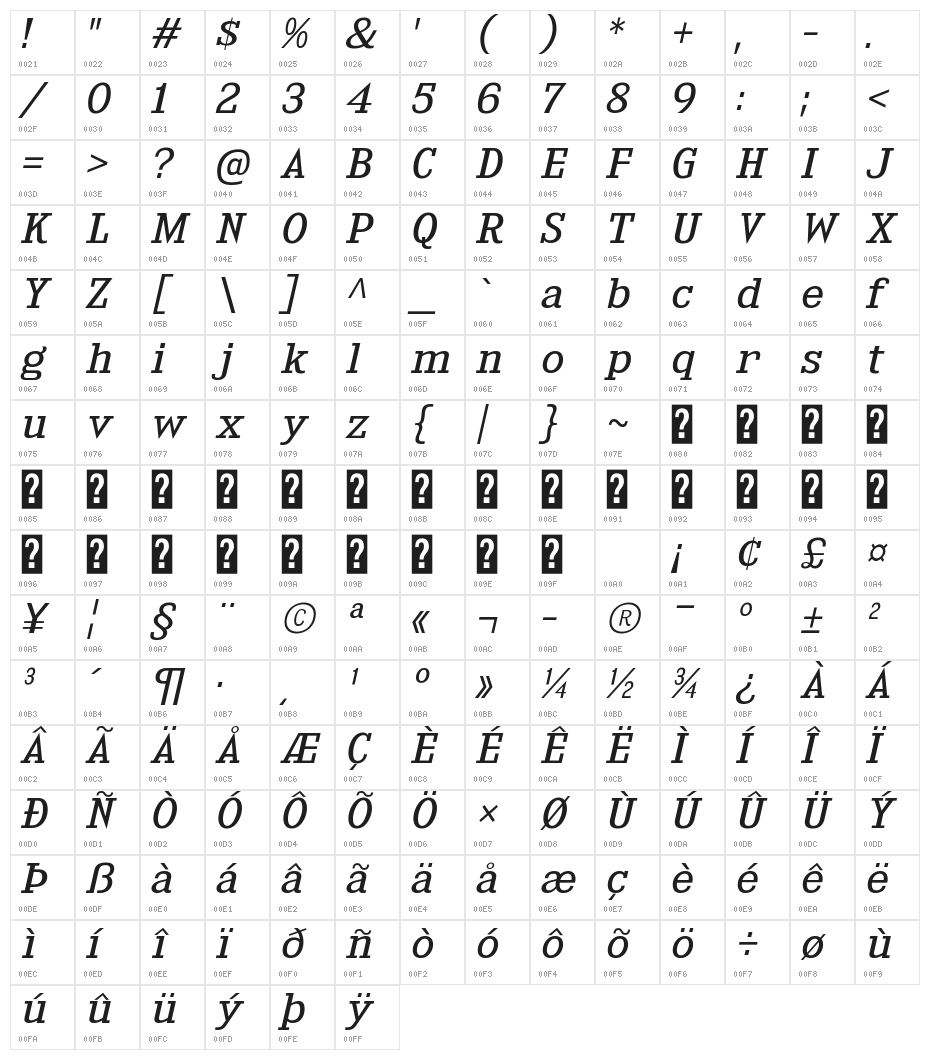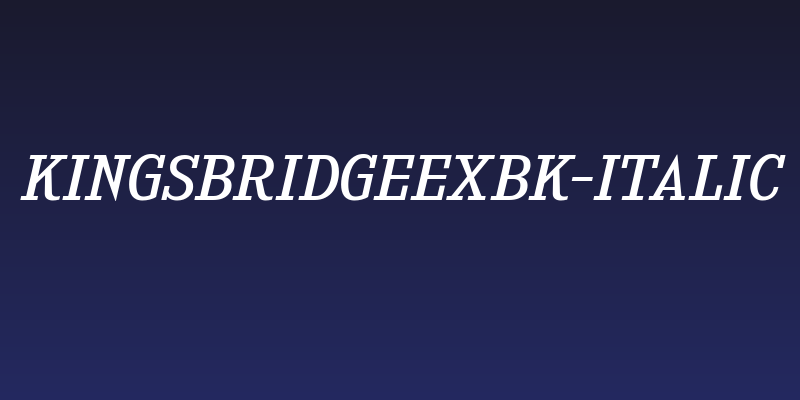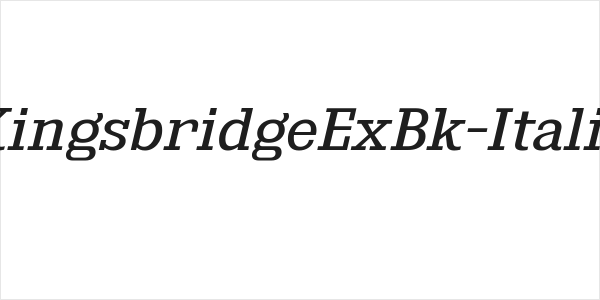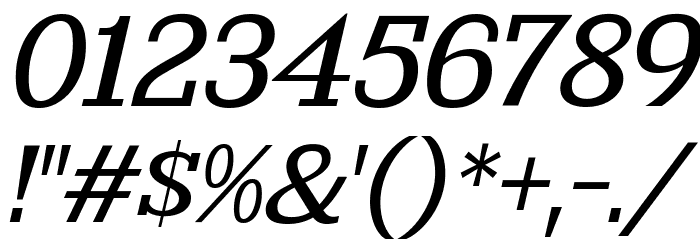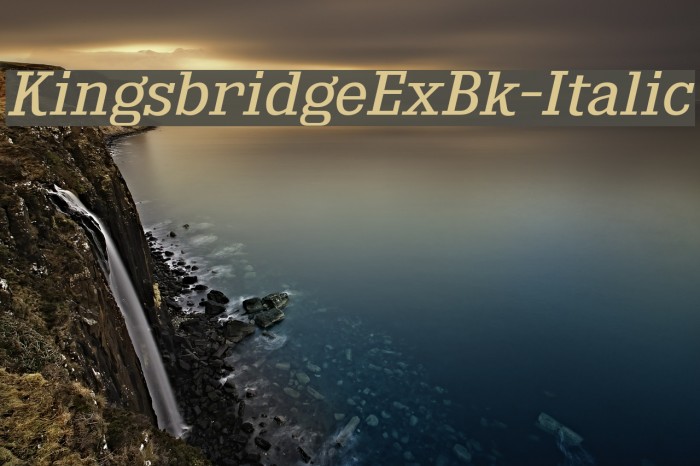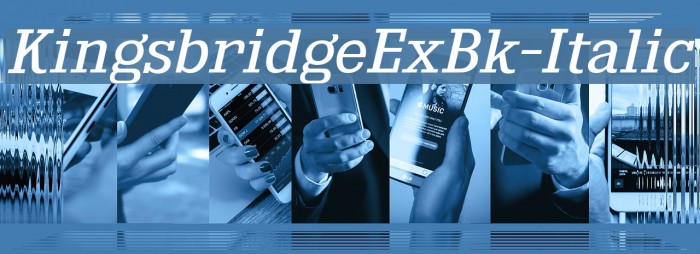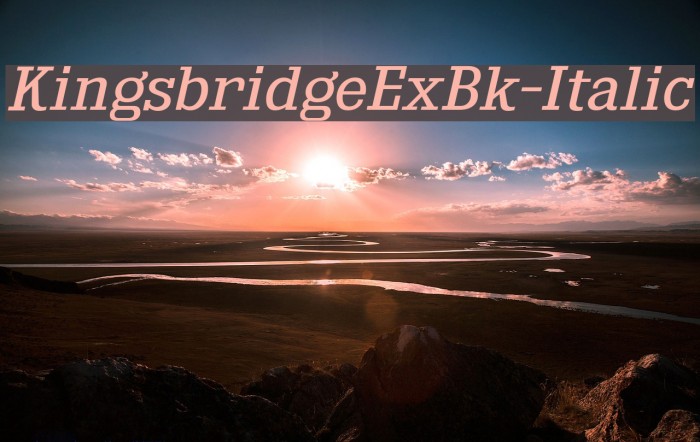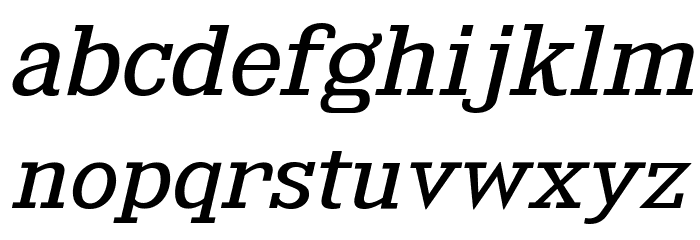
KingsbridgeExBk-Italic Font
KingsbridgeExBk-Italic Description
This font features a classic serif design with a distinct italic slant, giving it an elegant and sophisticated appearance. The characters are well-proportioned, with smooth curves and sharp serifs that enhance readability while maintaining a stylish flair. The uppercase letters are bold and commanding, while the lowercase letters offer a more refined and delicate look. The numerals are clear and consistent, making them suitable for both text and display purposes. Special characters are included, providing versatility for various design needs. Overall, this font exudes a timeless charm, making it ideal for projects that require a touch of elegance.
| Overall Style | Classic |
| Use Case | Headlines, Body text, Logos |
| Proposed Projects | Ideal for book covers, formal invitations, branding, and editorial design. |